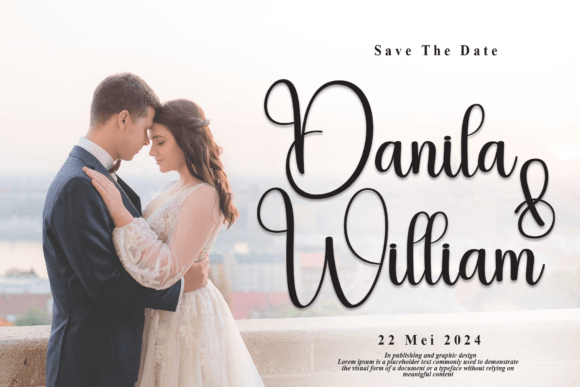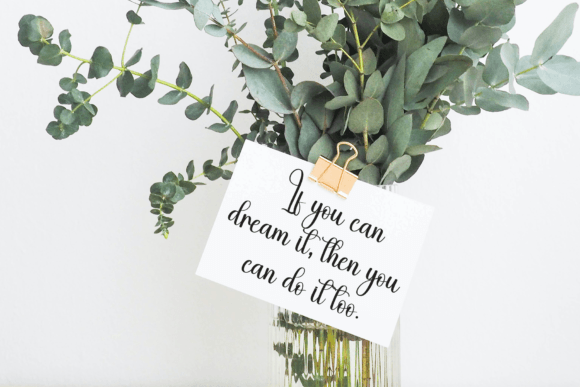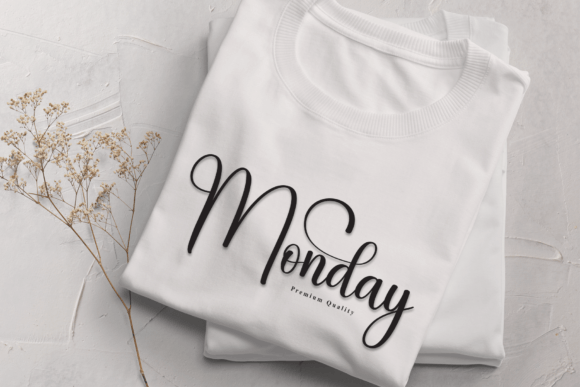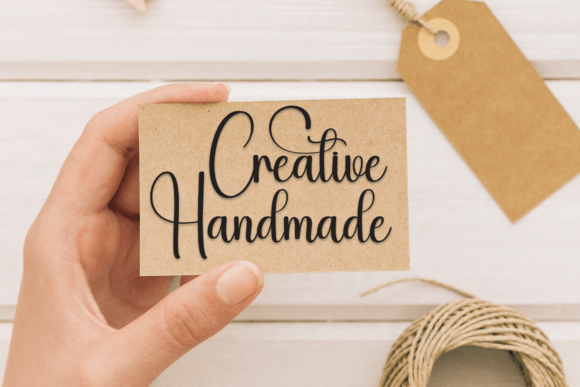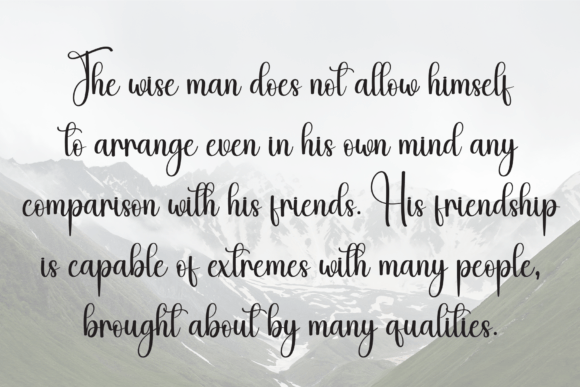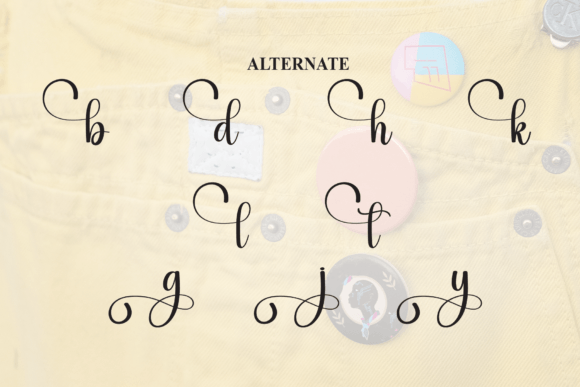
Introducing Badge Font: The Sweet and Friendly Handwritten Font for Your Creative Projects
Are you a designer or crafter looking for a font that can add a personal touch to your creative projects? Look no further than Badge Font, a sweet and friendly handwritten font that’s perfect for a wide range of designs. With its natural and unique style, Badge Font is incredibly versatile and can be used for various projects, from branding and packaging to scrapbooking and DIY crafts.
The Characteristics of Badge Font
Badge Font is a handwritten font that’s designed to look friendly and approachable. Its natural style makes it perfect for designers and crafters who want to add a personal touch to their projects. The font has a unique and distinctive look that’s both elegant and playful, making it suitable for a wide range of designs.
One of the standout features of Badge Font is its versatility. It’s a font that can be used for both formal and informal projects, and it’s suitable for a wide range of design styles, from modern and minimalist to vintage and distressed.
The Benefits of Using Badge Font
So, why should you choose Badge Font for your next project? Here are just a few benefits of using this amazing font:
- Unique and distinctive look: Badge Font has a unique and distinctive look that’s sure to make your projects stand out from the crowd.
- Versatile: Badge Font is incredibly versatile and can be used for a wide range of designs, from branding and packaging to scrapbooking and DIY crafts.
- Easy to read: Despite its handwritten style, Badge Font is easy to read and understand, making it perfect for projects where clarity is important.
- Customizable: Badge Font can be customized to suit your needs, allowing you to adjust the size, color, and style to fit your design.
How to Use Badge Font in Your Designs
So, how can you use Badge Font in your designs? Here are a few ideas to get you started:
- Branding and packaging: Use Badge Font to create custom branding and packaging for your business or product.
- Scrapbooking and journaling: Add a personal touch to your scrapbooking and journaling projects with Badge Font.
- DIY crafts: Use Badge Font to create custom labels, tags, and other embellishments for your DIY crafts.
- Signage and posters: Use Badge Font to create eye-catching signage and posters for your business or event.
Tips and Tricks for Getting the Most Out of Badge Font
Here are a few tips and tricks for getting the most out of Badge Font:
- Experiment with different colors and styles: Don’t be afraid to experiment with different colors and styles to find the perfect look for your project.
- Use it with other fonts: Badge Font pairs well with other fonts, so don’t be afraid to use it in combination with other typefaces.
- Adjust the size and scale: Adjust the size and scale of Badge Font to fit your design and create visual interest.